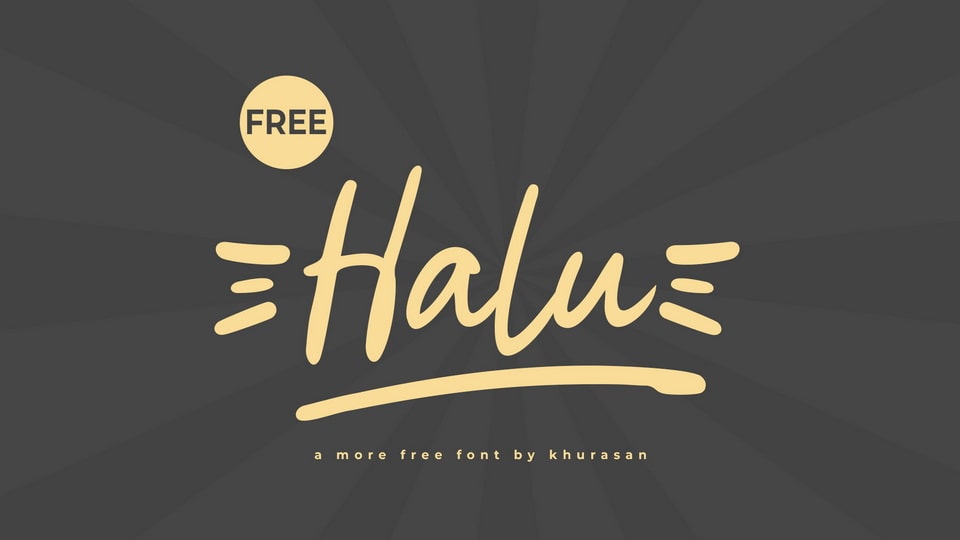
Download Halu font, a simple, natural, and dynamic handwritten typeface that captures the effortless beauty of quick pen strokes with Its fluid, slightly irregular letterforms.